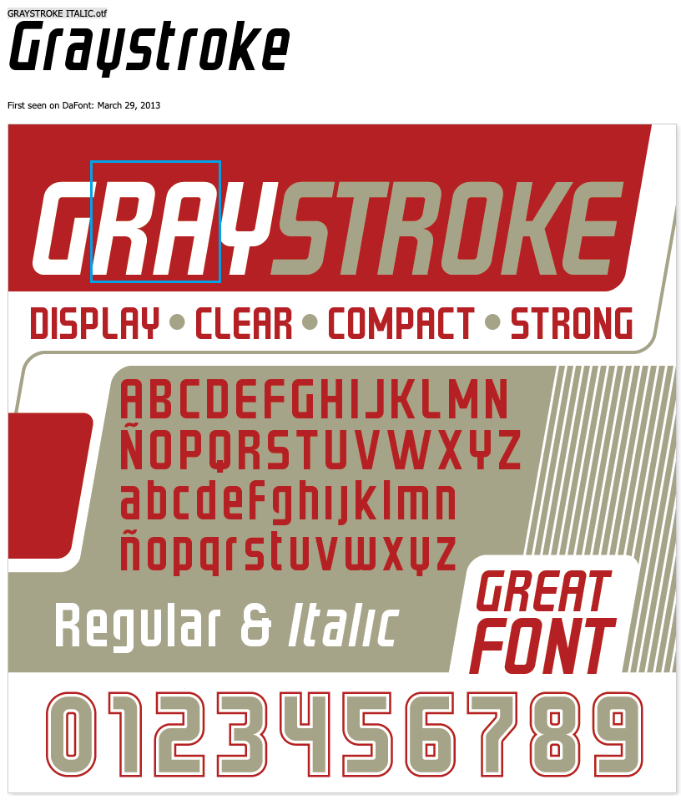
stop the music Posted November 28, 2023 Share Posted November 28, 2023 It's hard to distinguish A/R, D/O, i/l, i/j, i/r, i/t, h/o in Graystroke (especially in high resolution). I just want to use Noto as all UI fonts. How to do it? As you can see, CLE(AR) are not clear in Graystroke. Link to comment https://forums.kleientertainment.com/forums/topic/152642-how-to-disable-the-graystroke-font/ Share on other sites More sharing options...